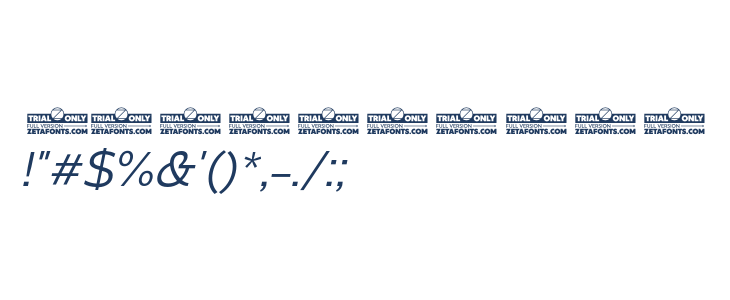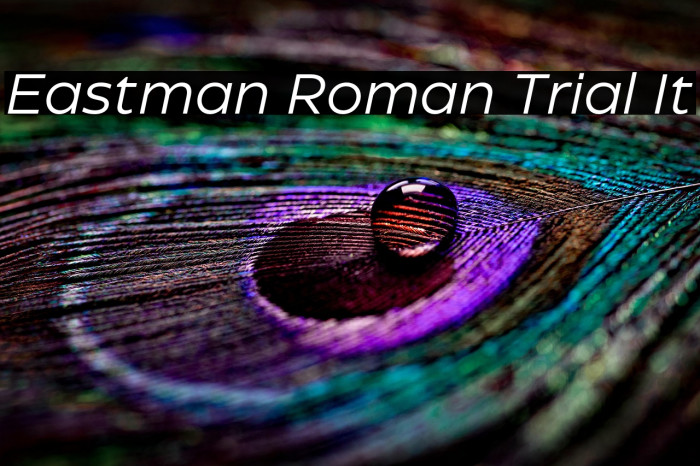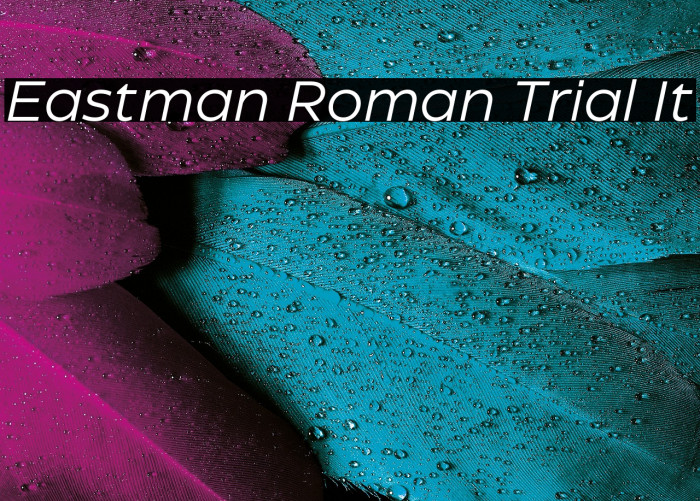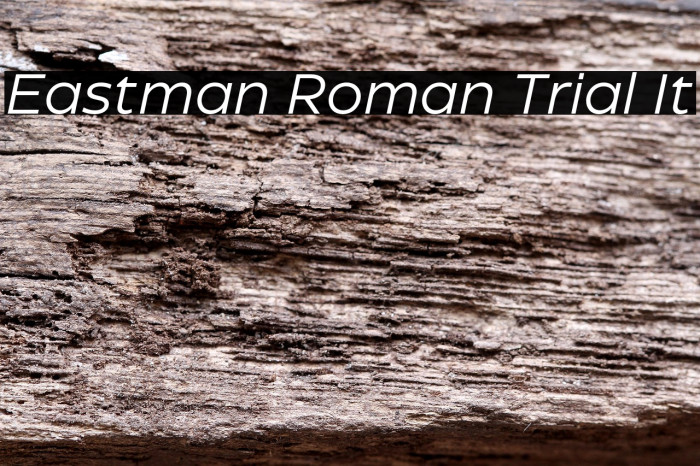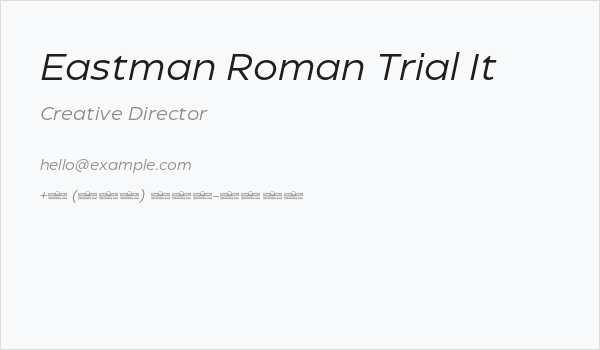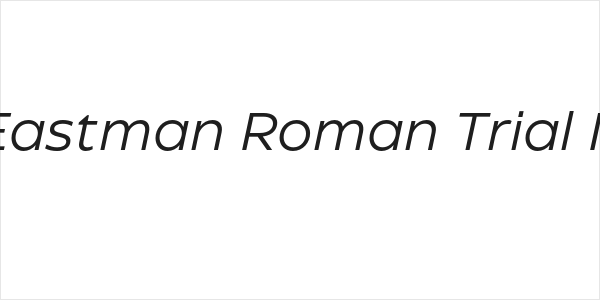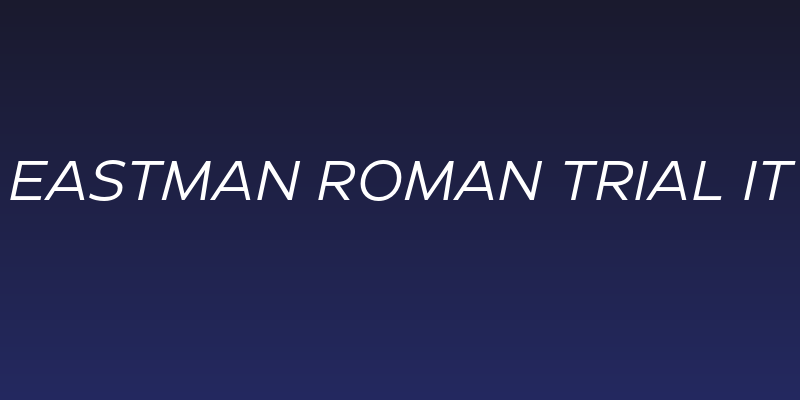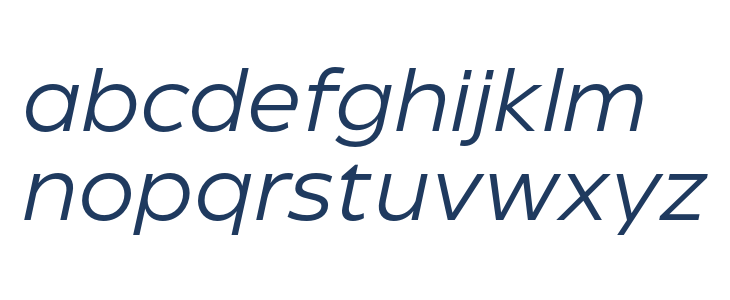
Eastman Roman Trial It Font
Eastman Roman Trial It Description
This font features a sleek, modern design with clean lines and a slight slant, giving it an italicized appearance. The characters are uniformly spaced, contributing to a harmonious and balanced look. The uppercase letters are bold and assertive, while the lowercase letters maintain a consistent flow, enhancing readability. The numerals and special characters are crafted with the same attention to detail, ensuring they blend seamlessly with the alphabetic characters. This font's contemporary style makes it suitable for a variety of digital and print applications.